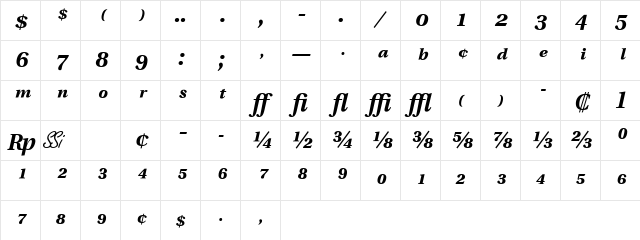
Veracity Pro Black SSi Bold Italic
Veracity Pro Black SSi Family
Veracity Pro Black SSi Bold Italic
Design Context for Veracity Pro Black SSi
Veracity Pro Black SSi is a composed and adaptable typeface that performs quietly and consistently across a wide range of design contexts. The slanted form adds forward momentum and visual energy. Its bold stroke weight gives it real presence on the page.